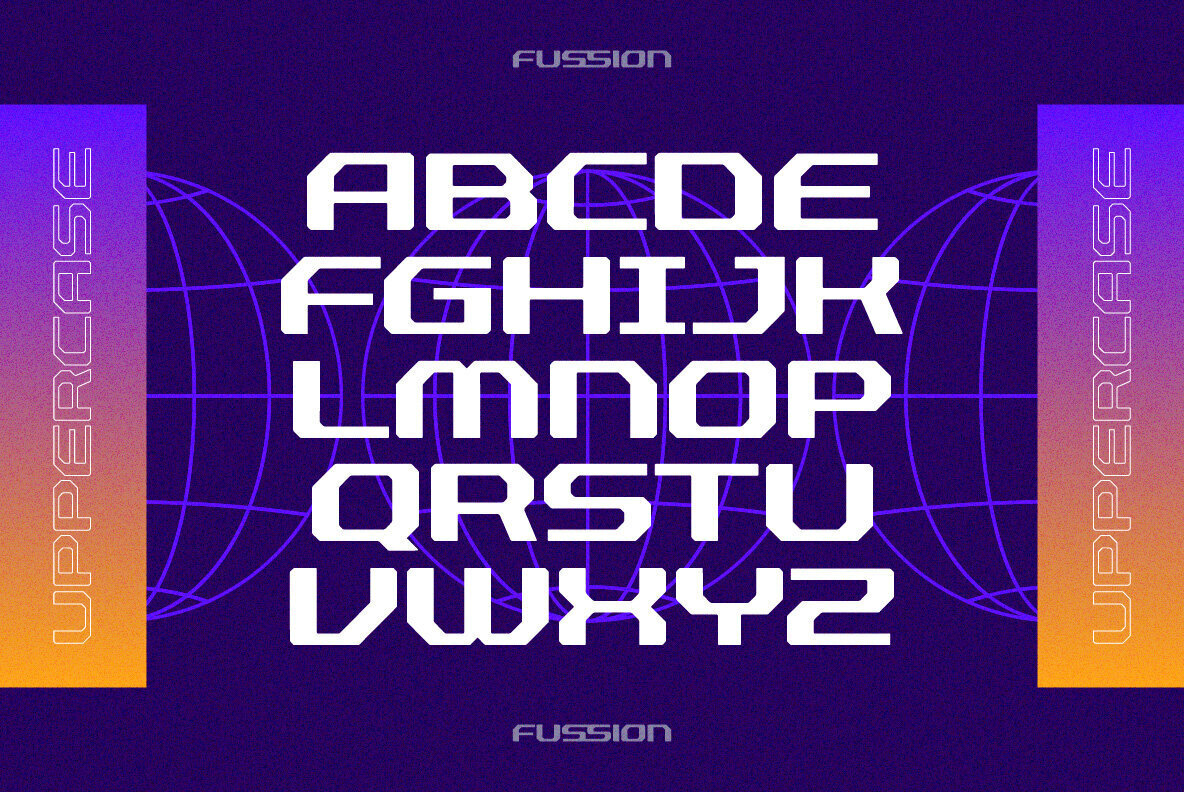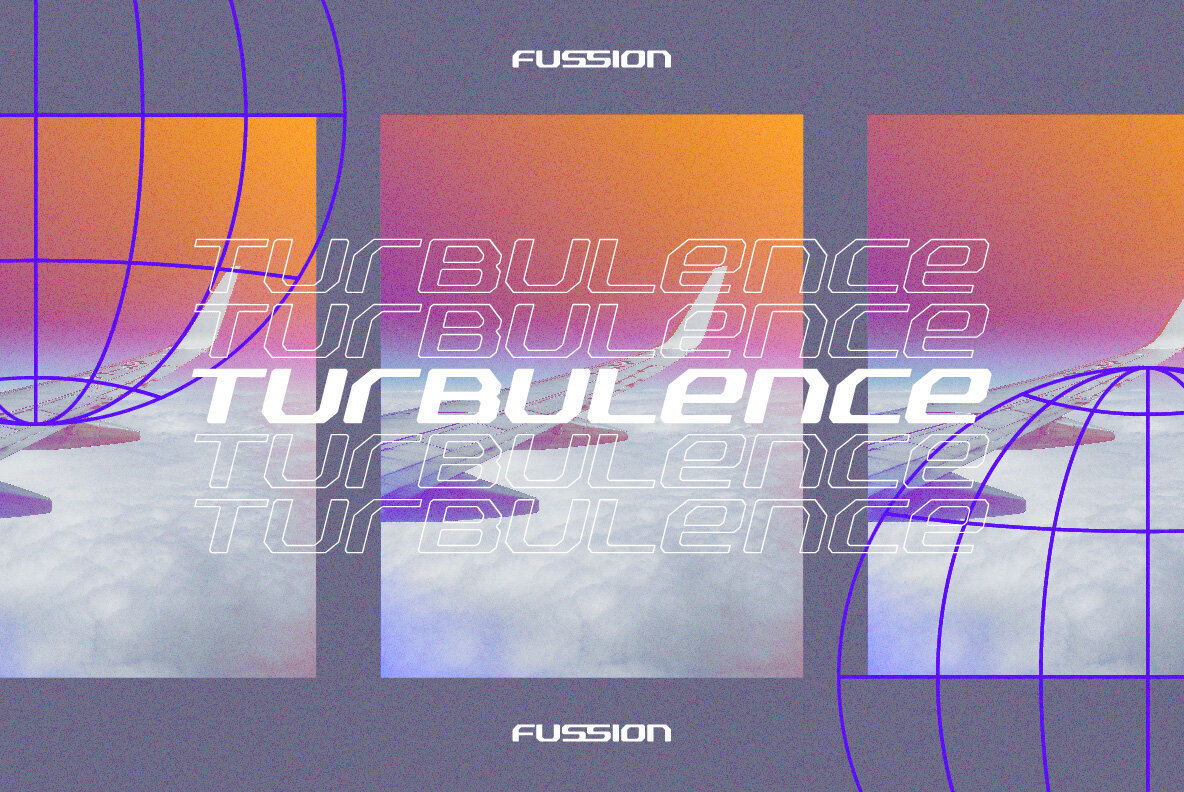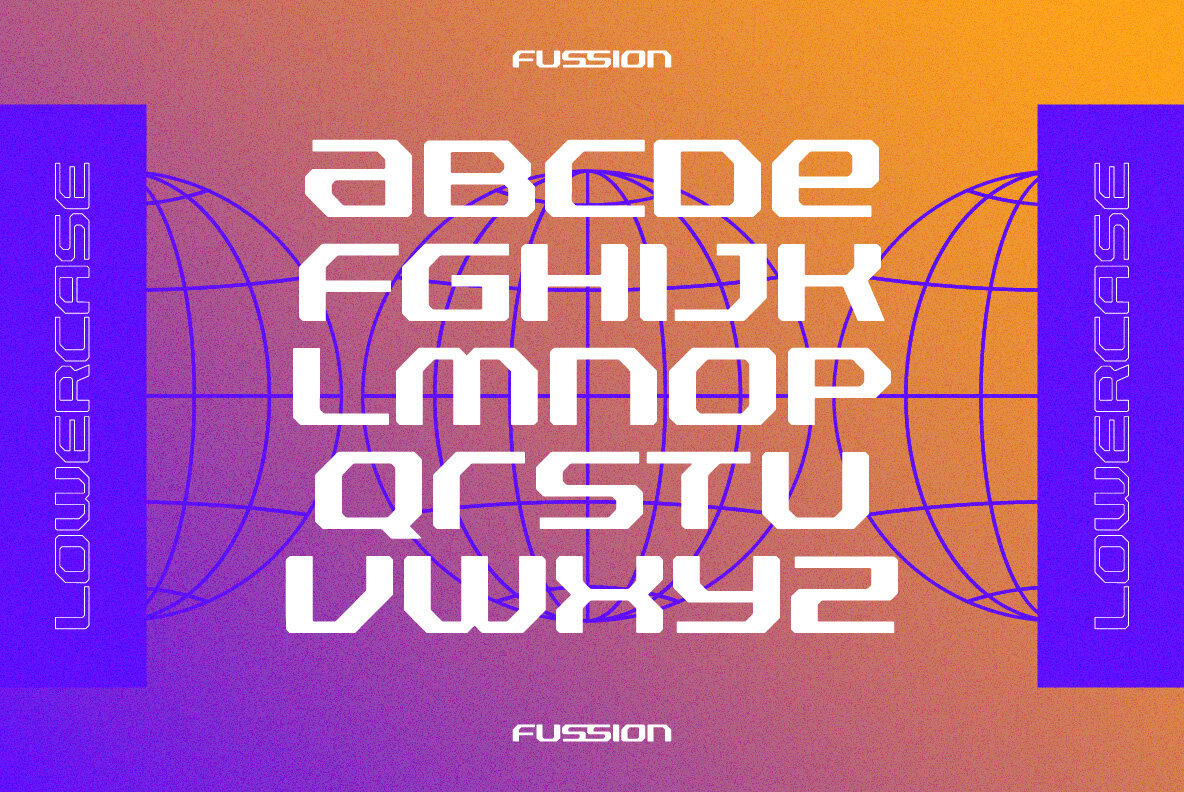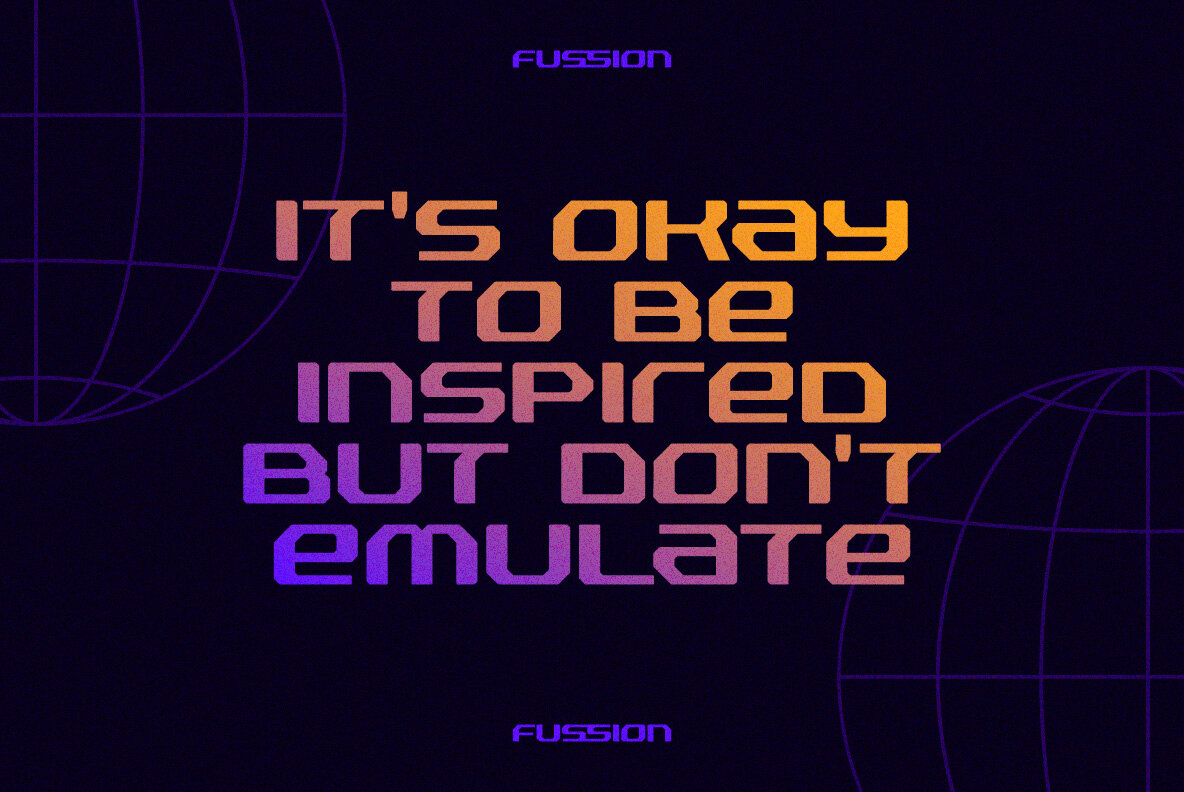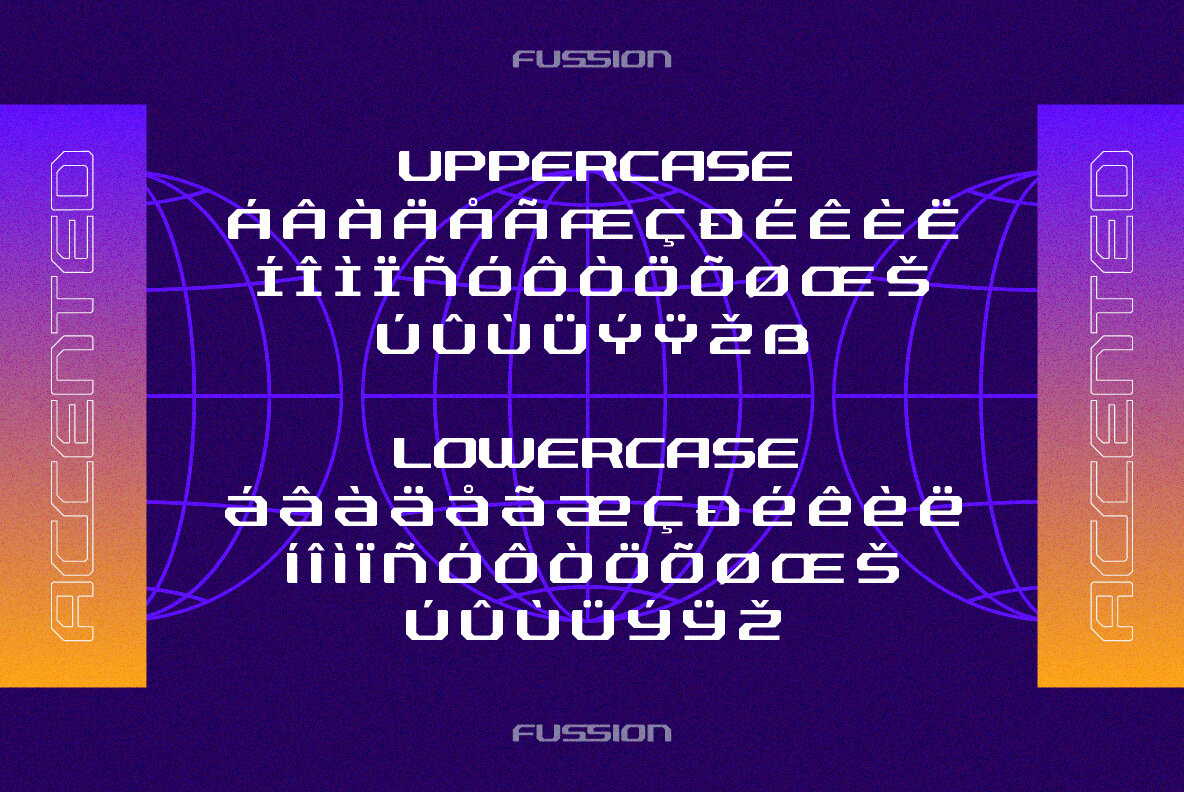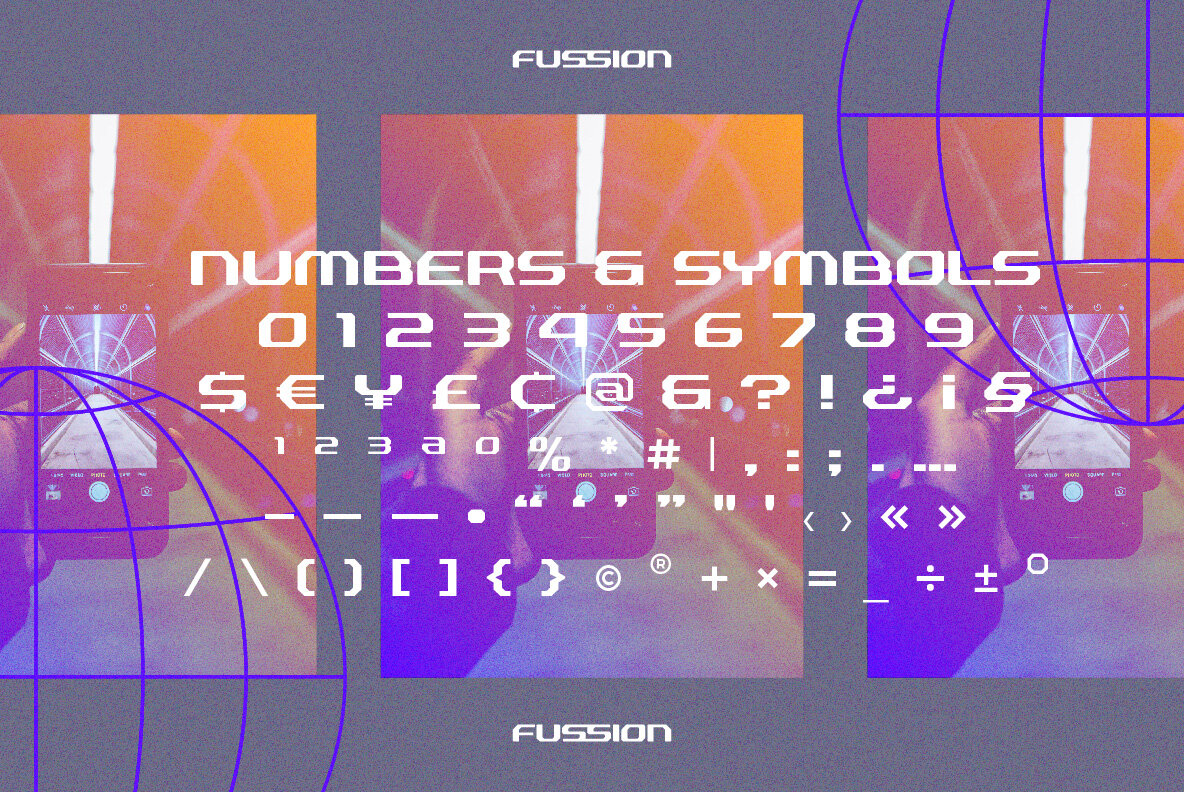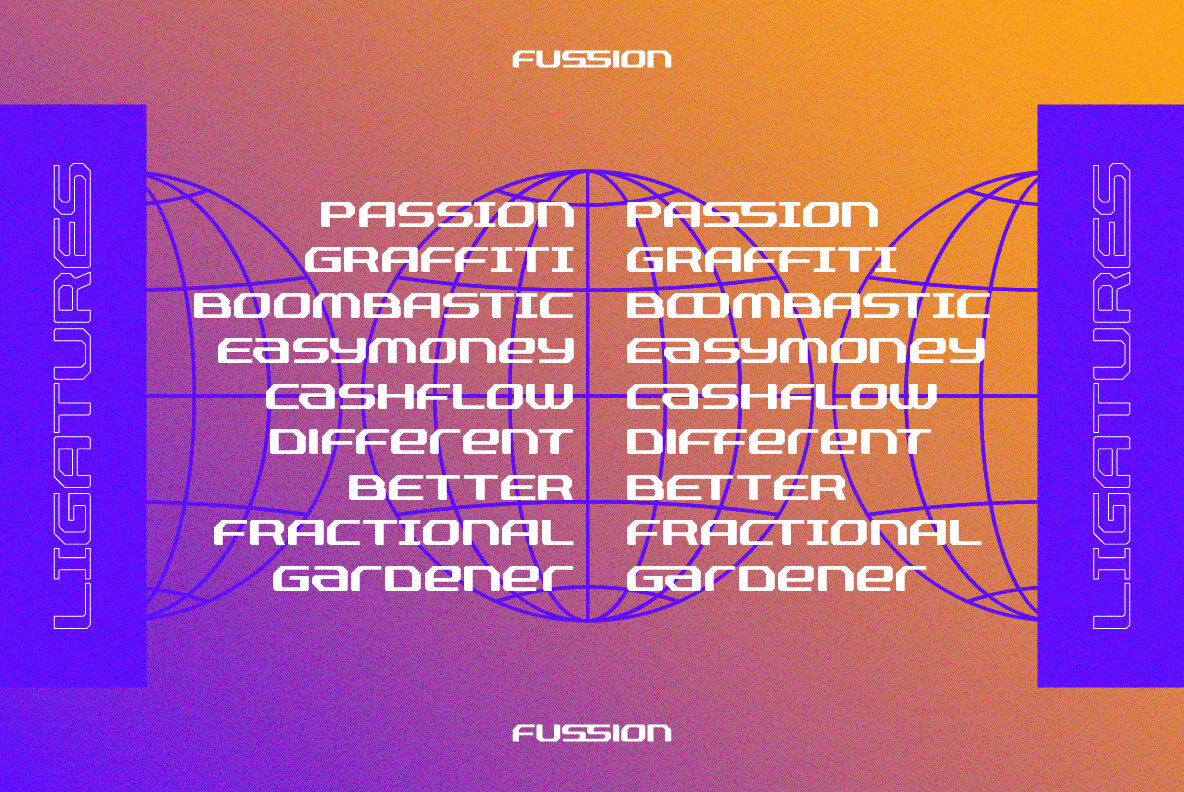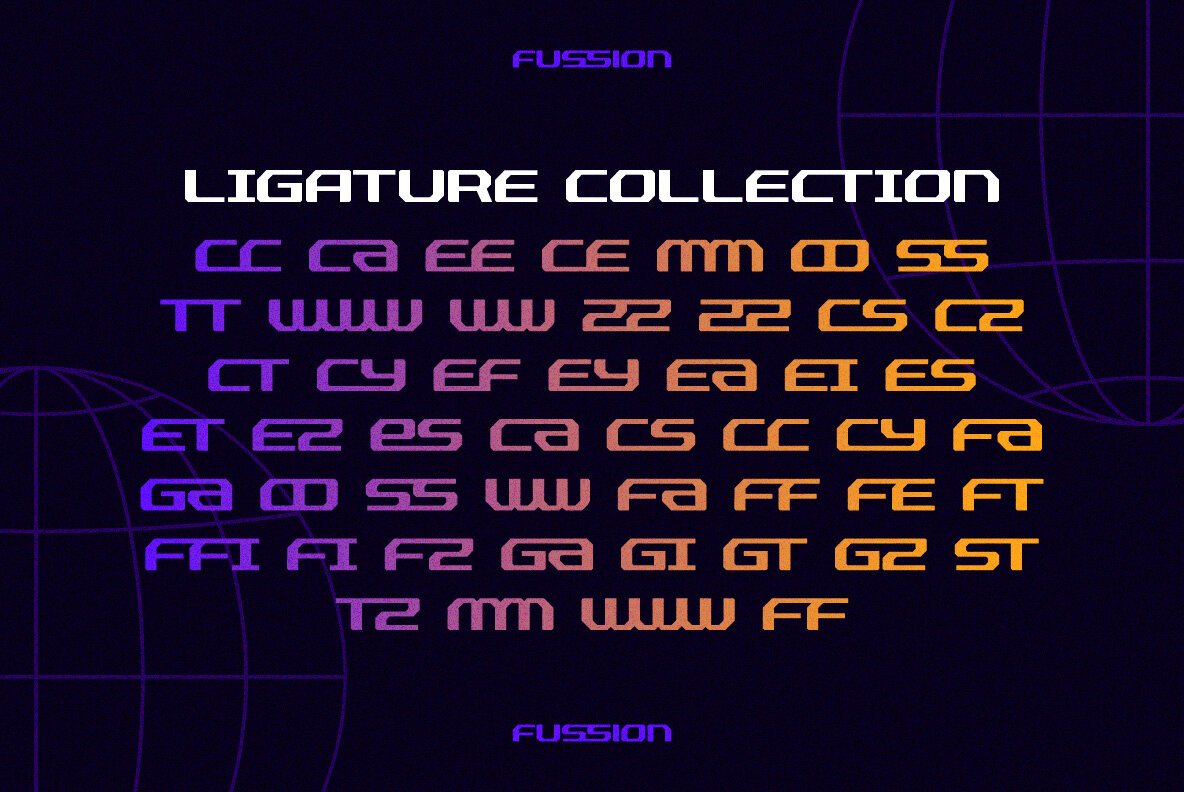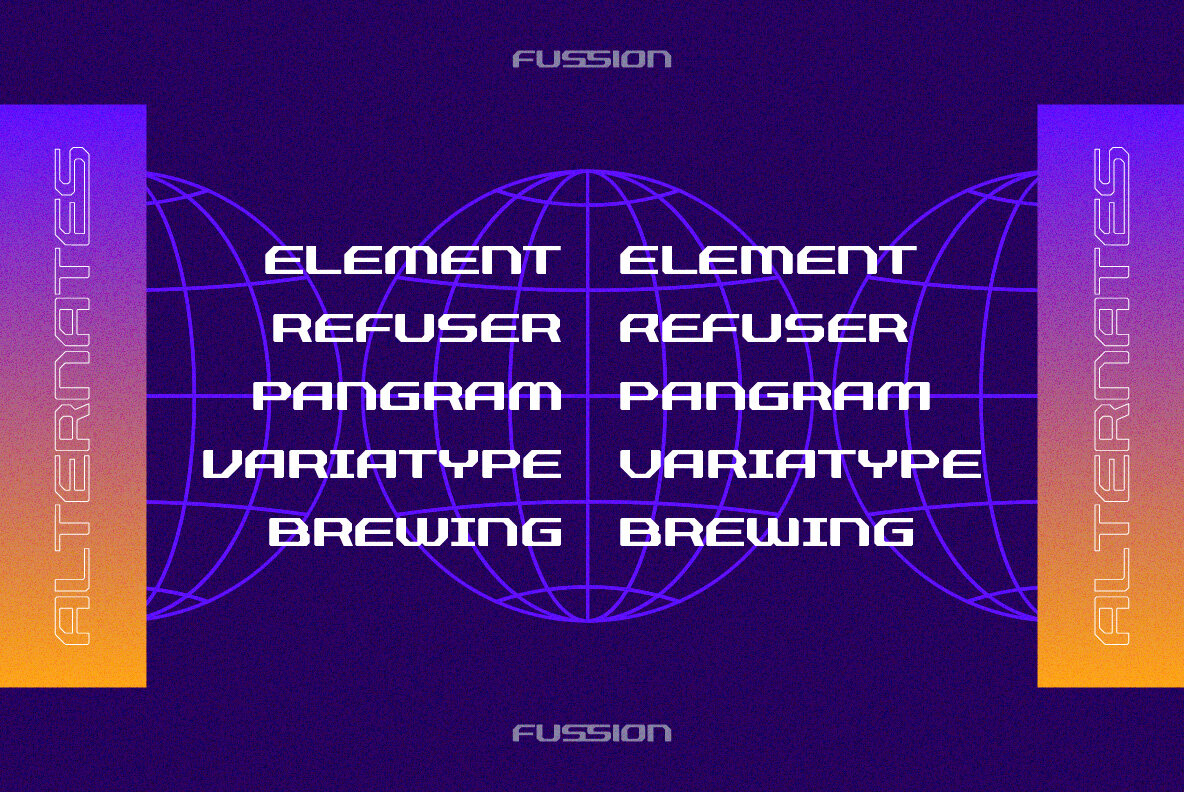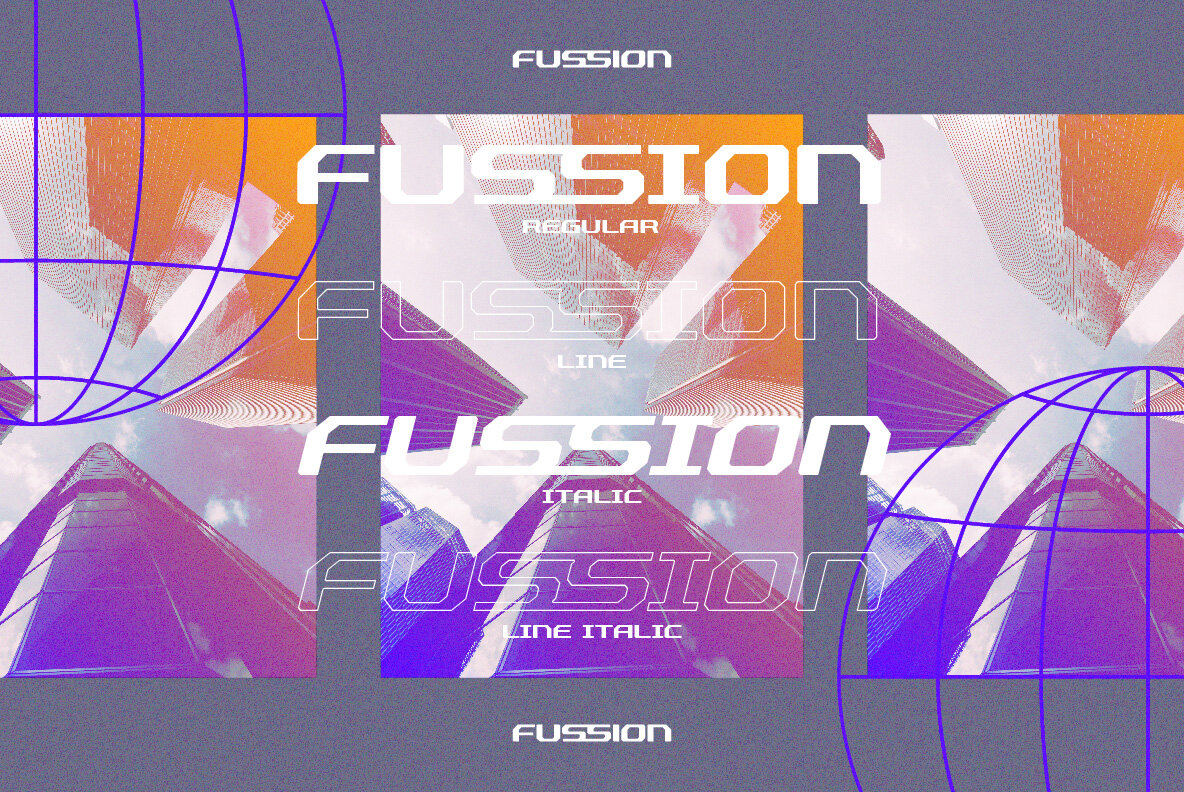
Fussion is inspired by modern technology, it's really suited to your branding project or logotype and more commercial project. With more ligatures to make it flexible to any brand name.